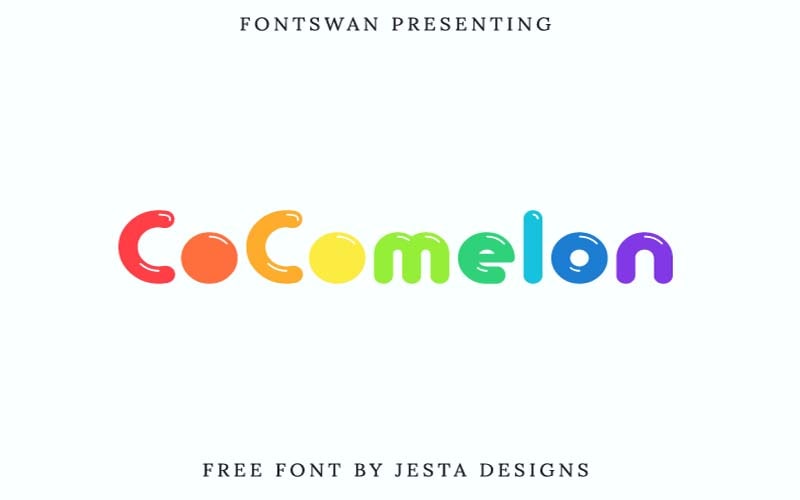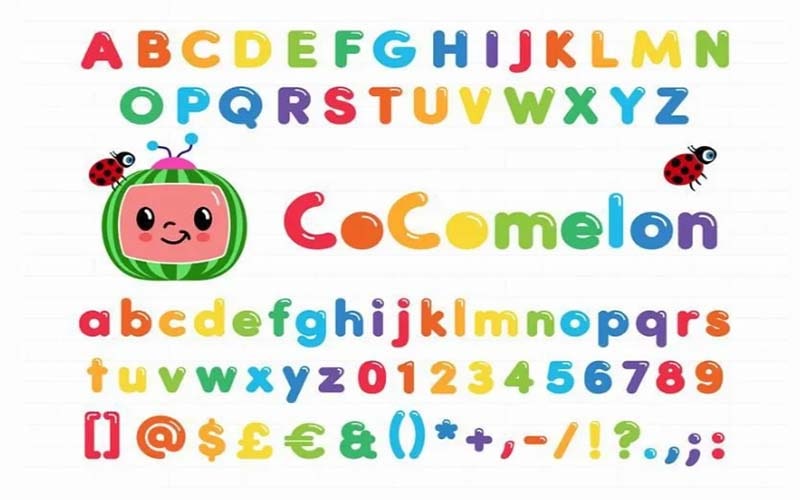
Cocomelon Font is a Fancy, Cartoon typeface. This is basically a youtube channel and streaming media show that is perfect for enlightening your thoughts.
This font is best for 3D animation videos for traditional rhymes and children’s songs. This font is the perfect choice for logos that consist of colorful wordmarks.
Treasure Studio took charge to design this font for Netflix in 2020 for the first time. This entertaining font provides educational content for kids.
This soft shiny font consists of one unique style such as the “Cocomelon Regular” font style. It also supports multiple languages that make it prominent around the world.
This soft and bold Cocomelon typeface is perfect for many purposes such as school club posters, kids and casual design projects, fun branding projects, pet shops, logos, and animal-related projects.
It is also suitable for social media posts, posters, photography, advertisements, t-shirt design, watermarking, invitations, stationery, product packaging, and many more purposes.
This regular free version font comes with basic glyphs and a strong character set that includes numbers, punctuation, uppercase, and lowercase letters. Let’s take a look at its beautiful texture.